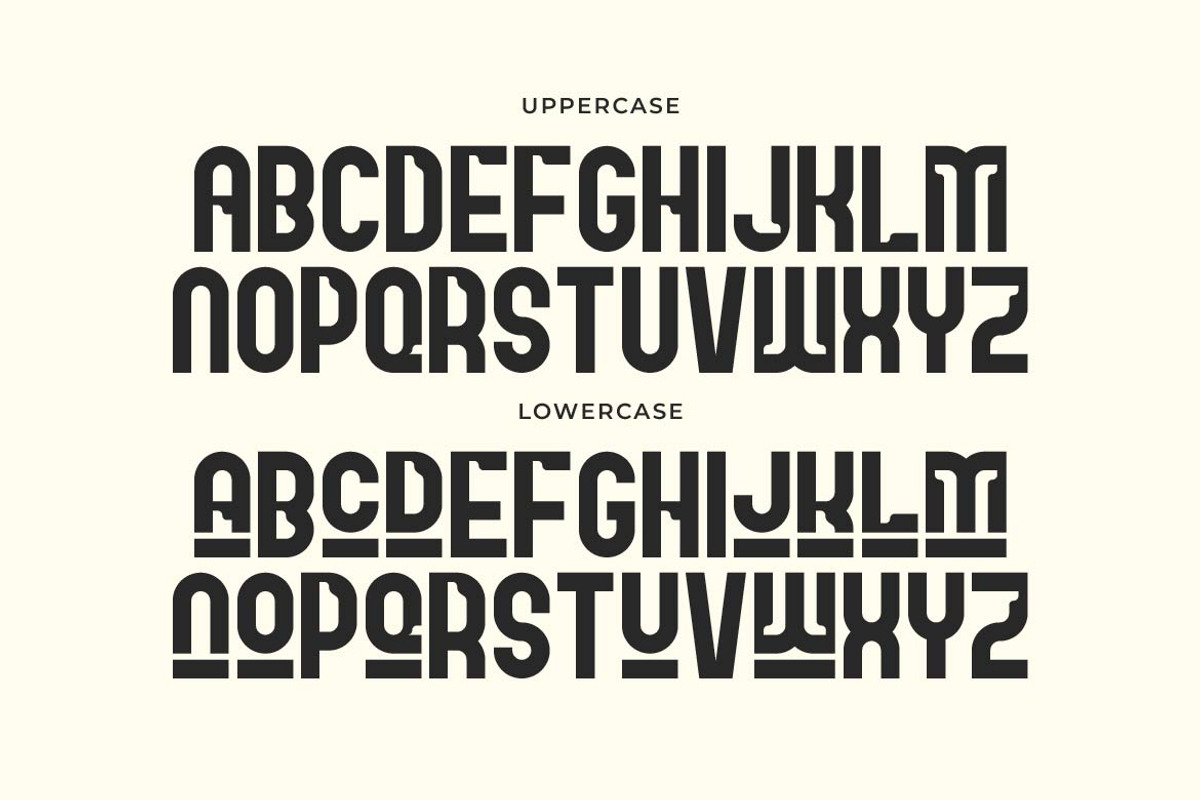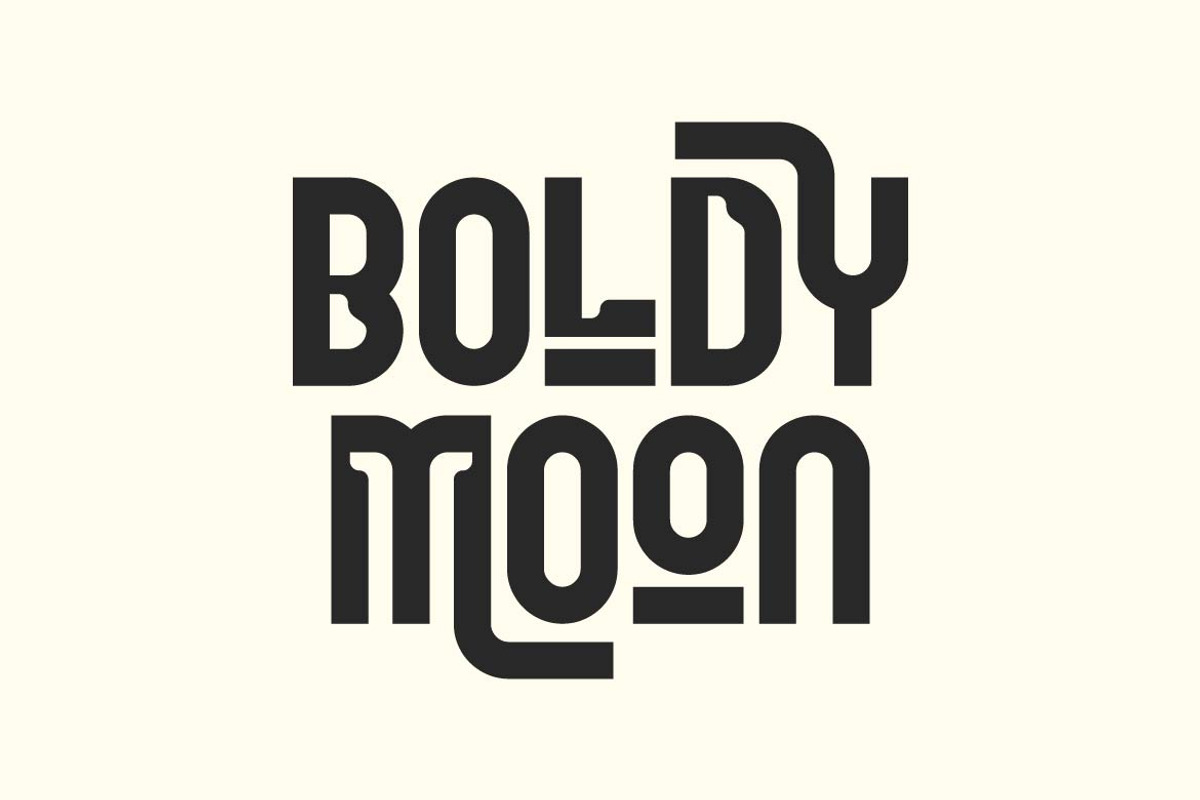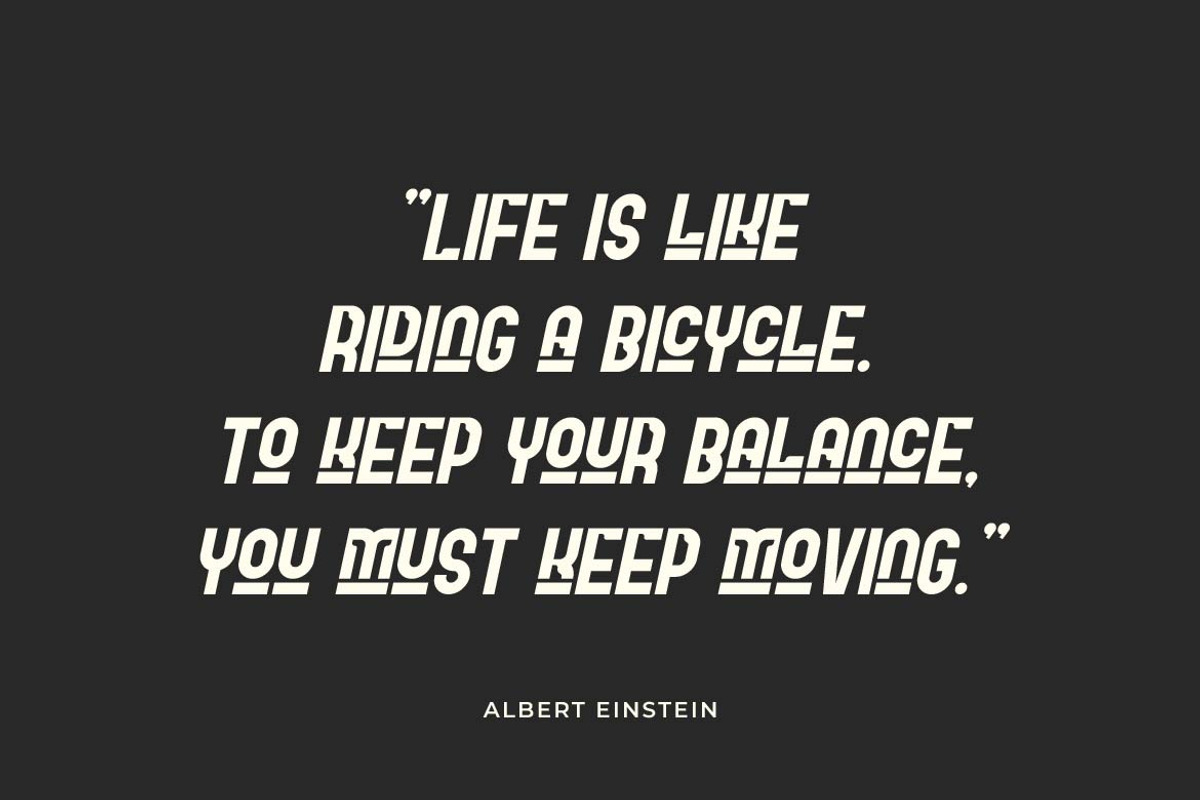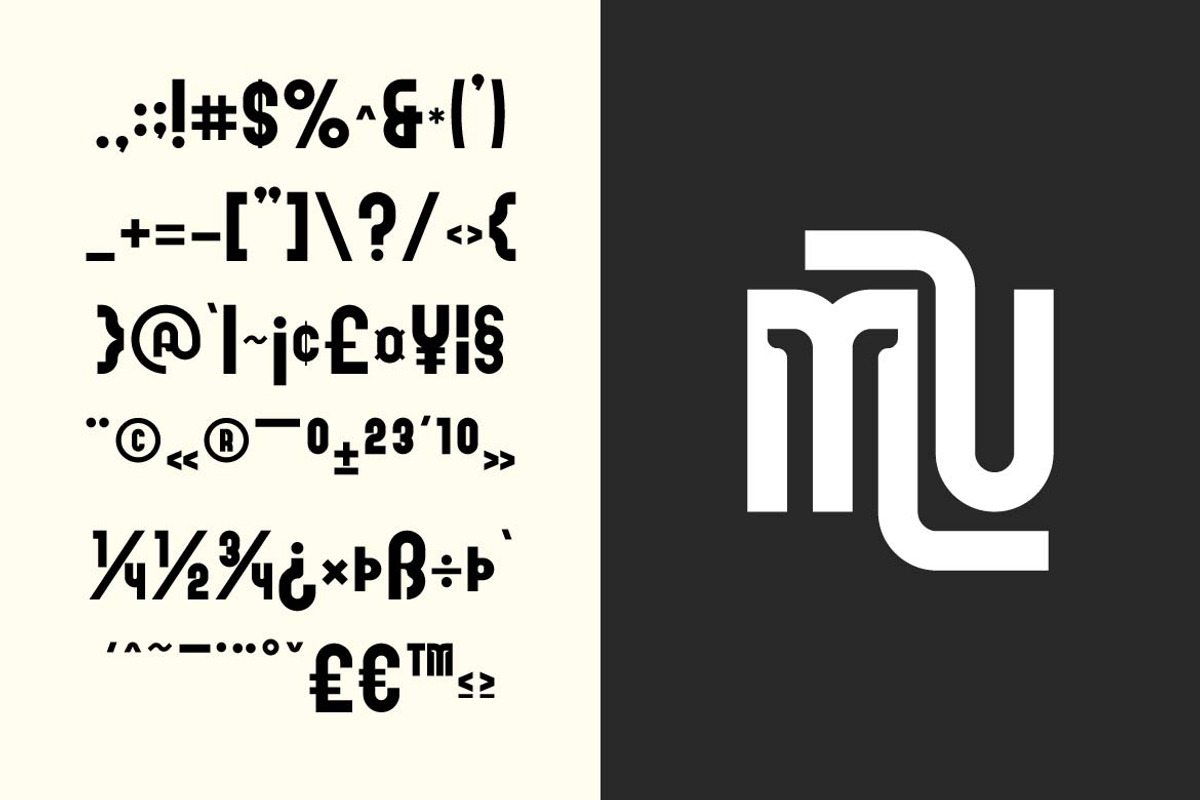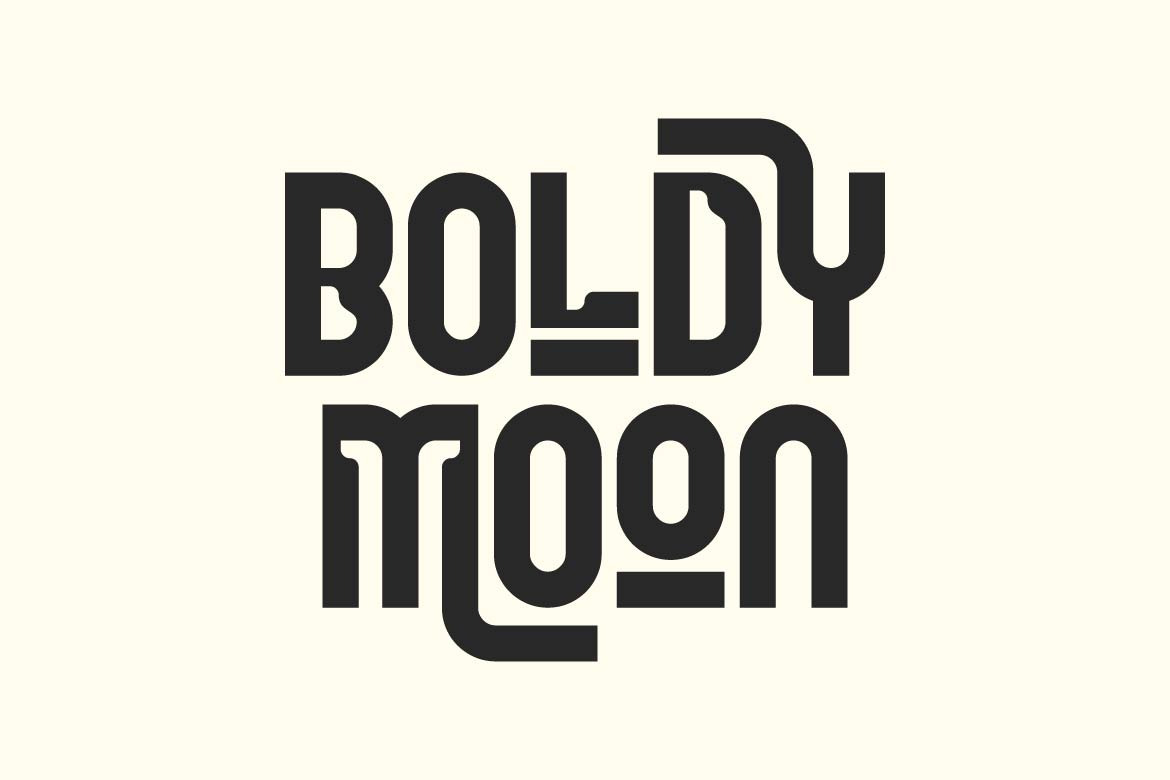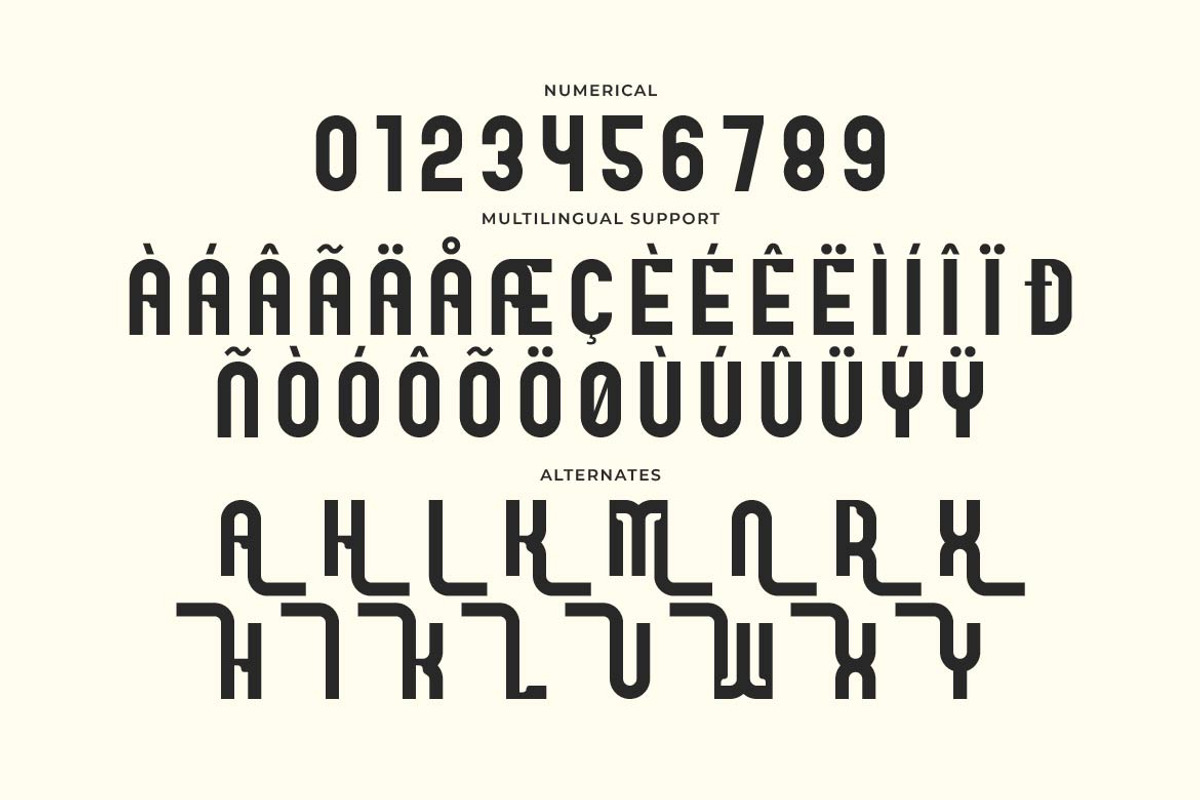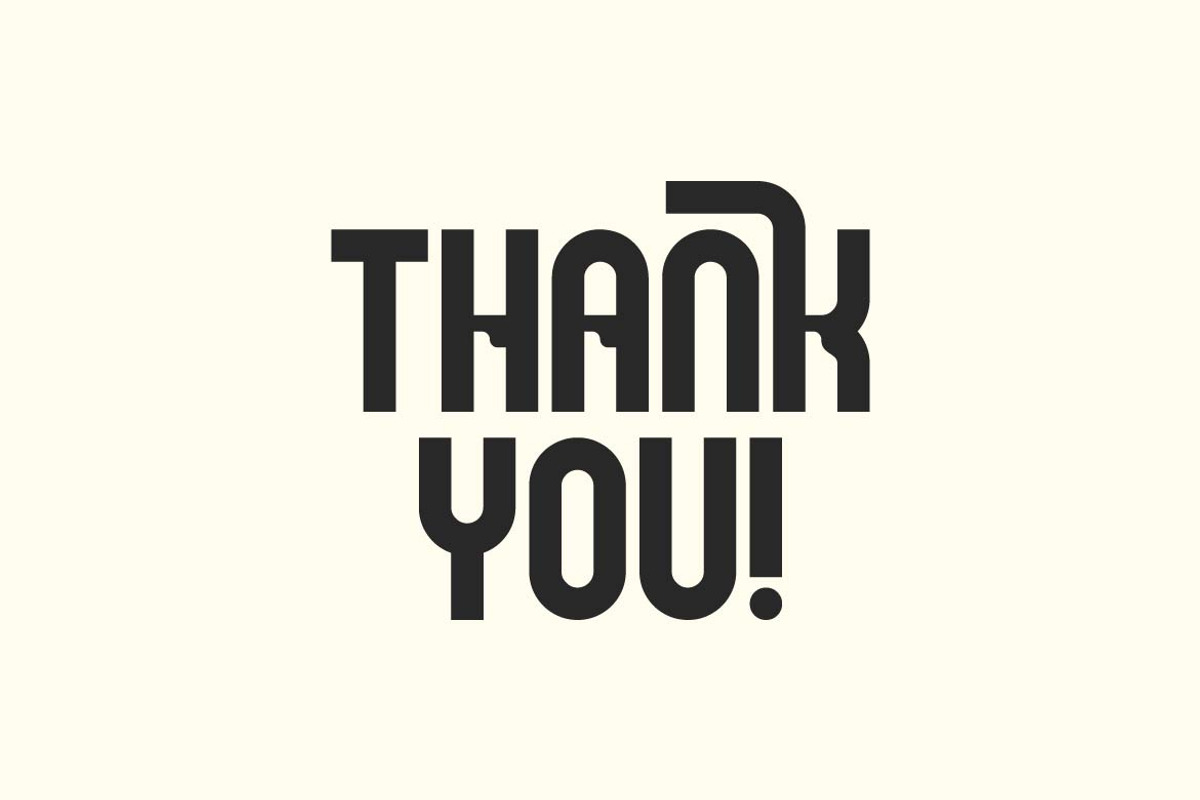
Boldy Moon – Display Logo Font
Boldy Moon is a creative display logo font designed to make every brand look bold, memorable, and full of personality. Featuring thick letterforms, distinctive curves, and a contemporary display style, Boldy Moon creates eye-catching typography that instantly becomes the center of attention.